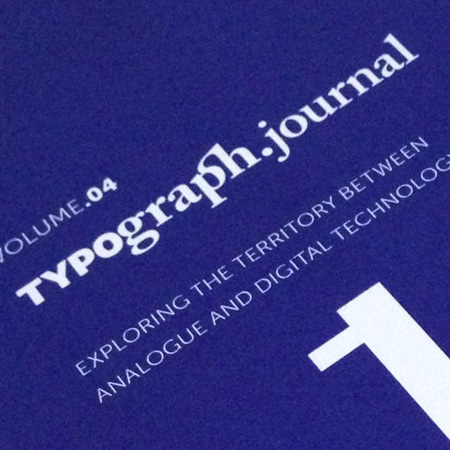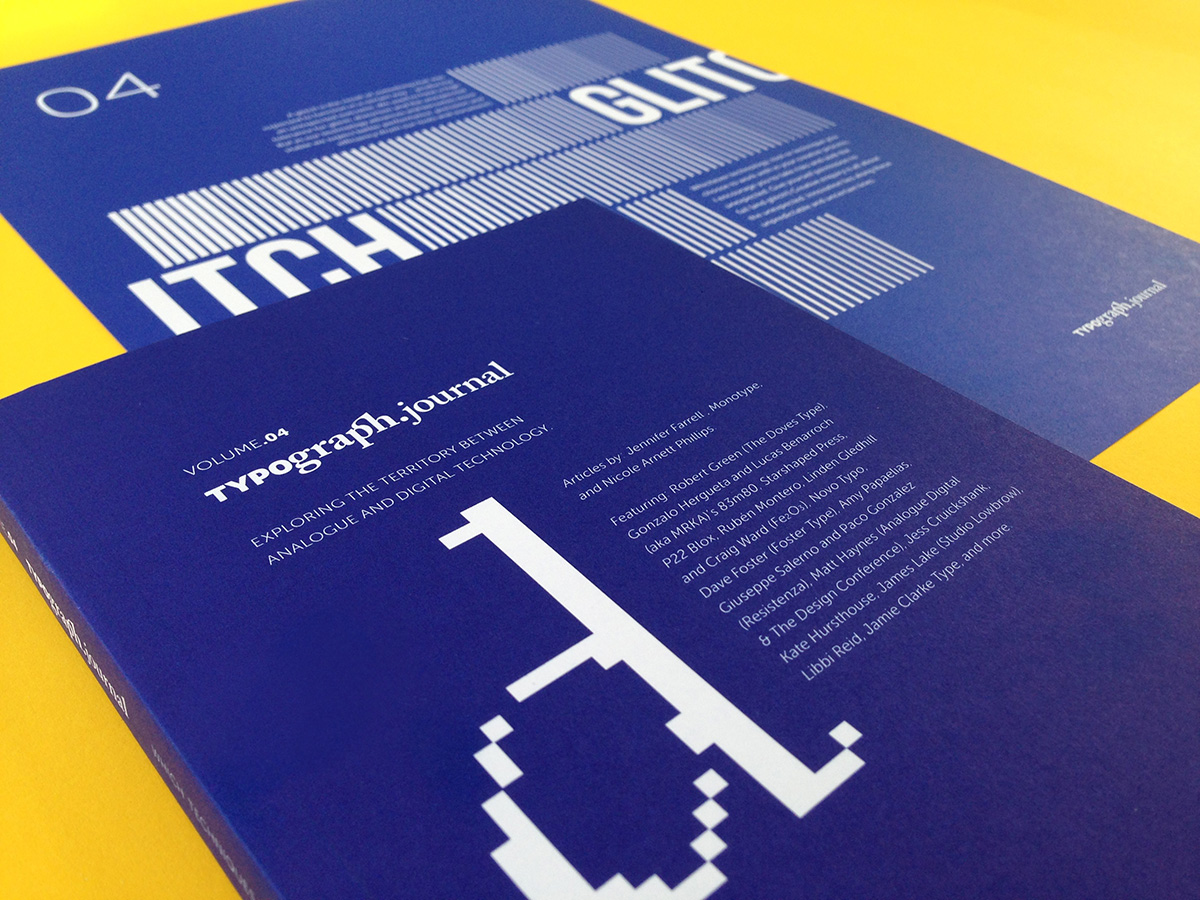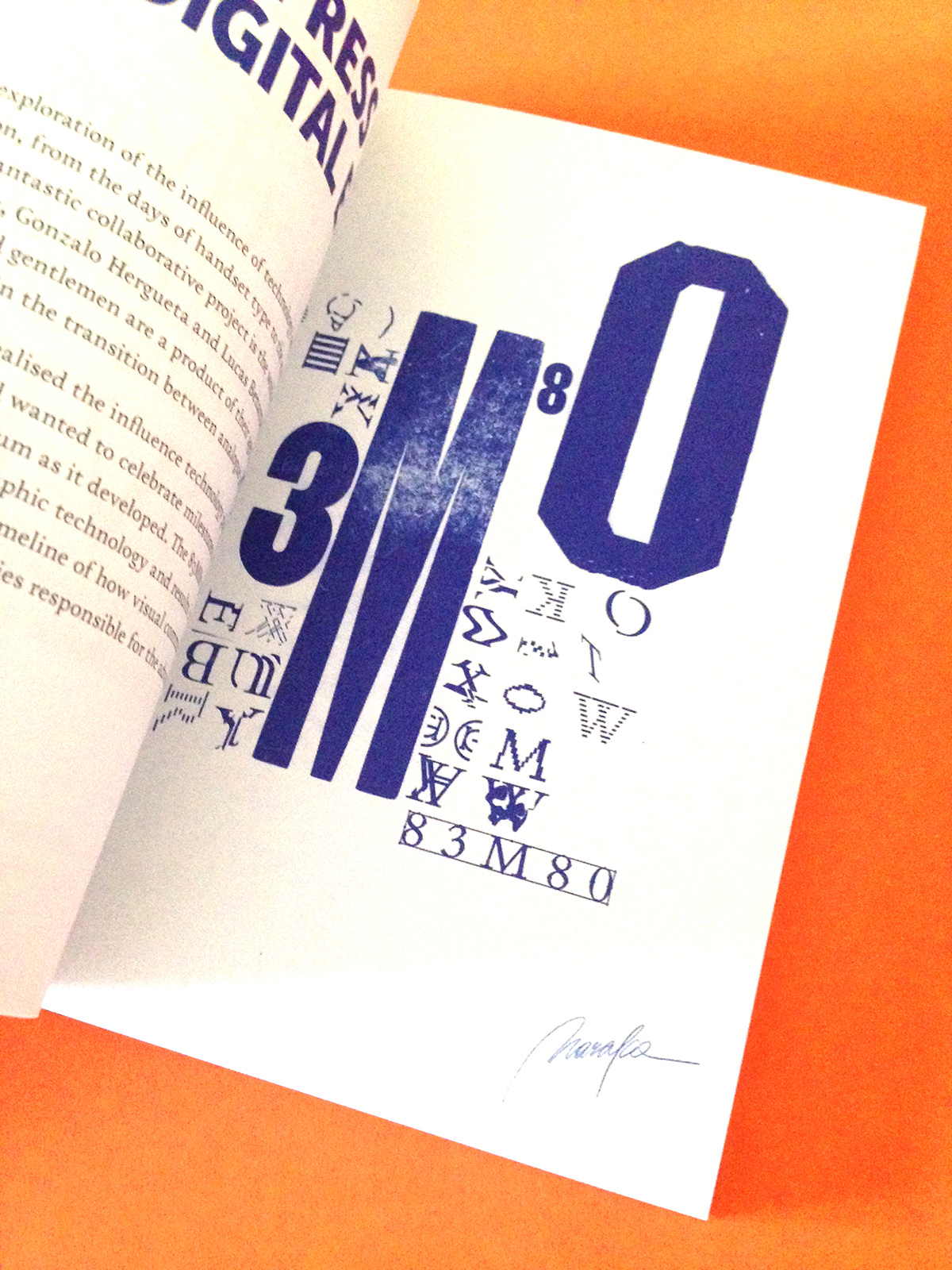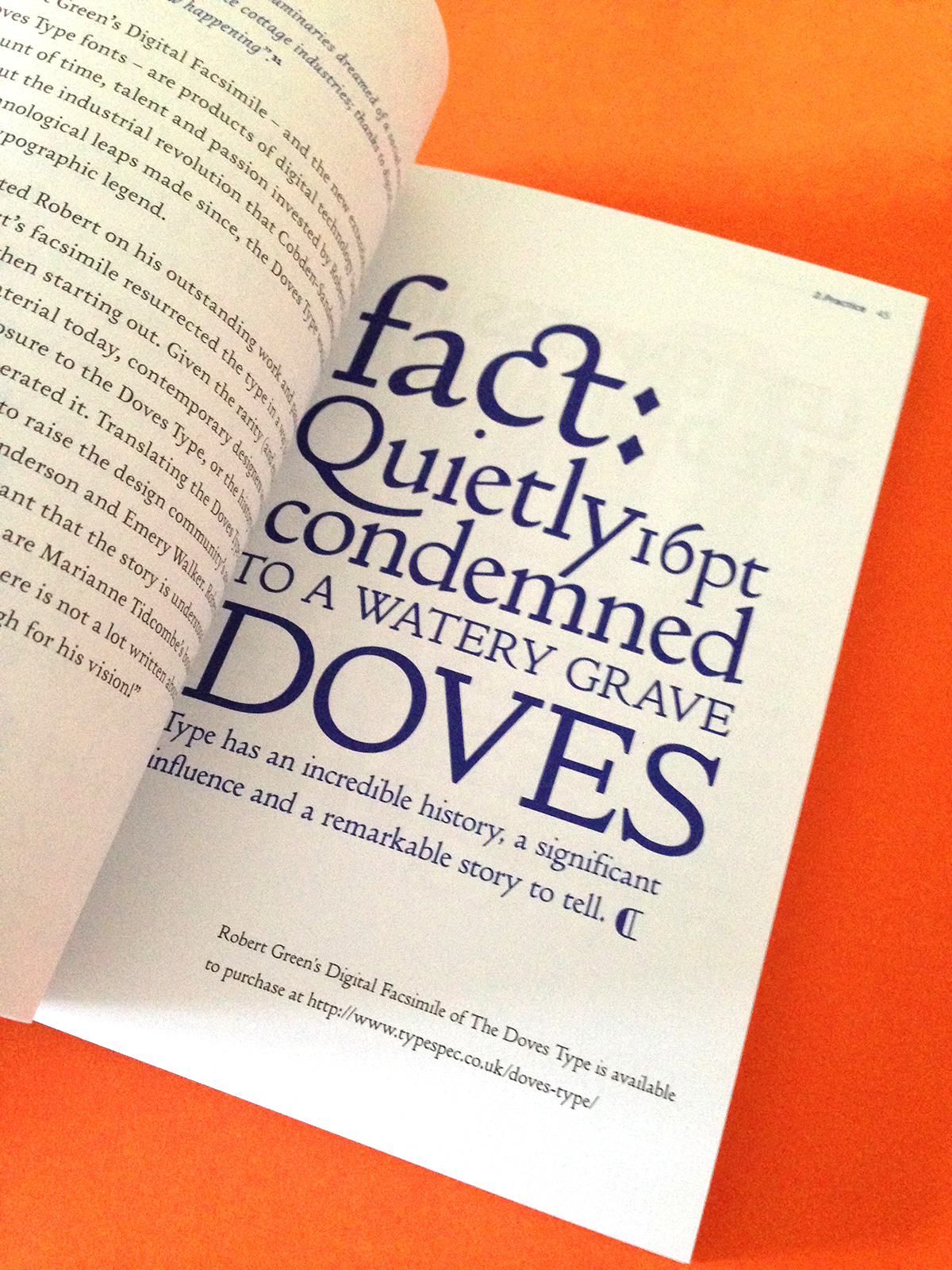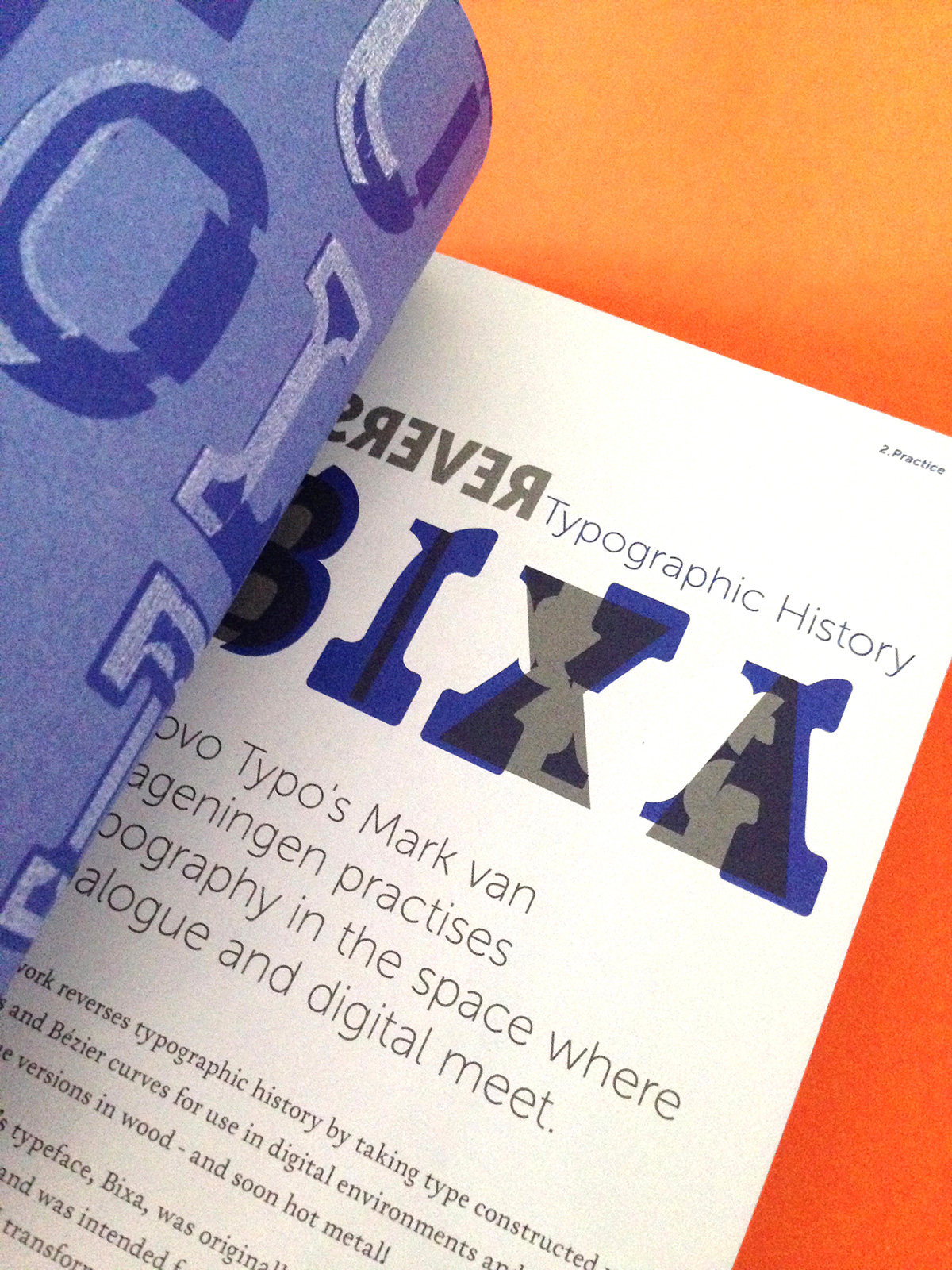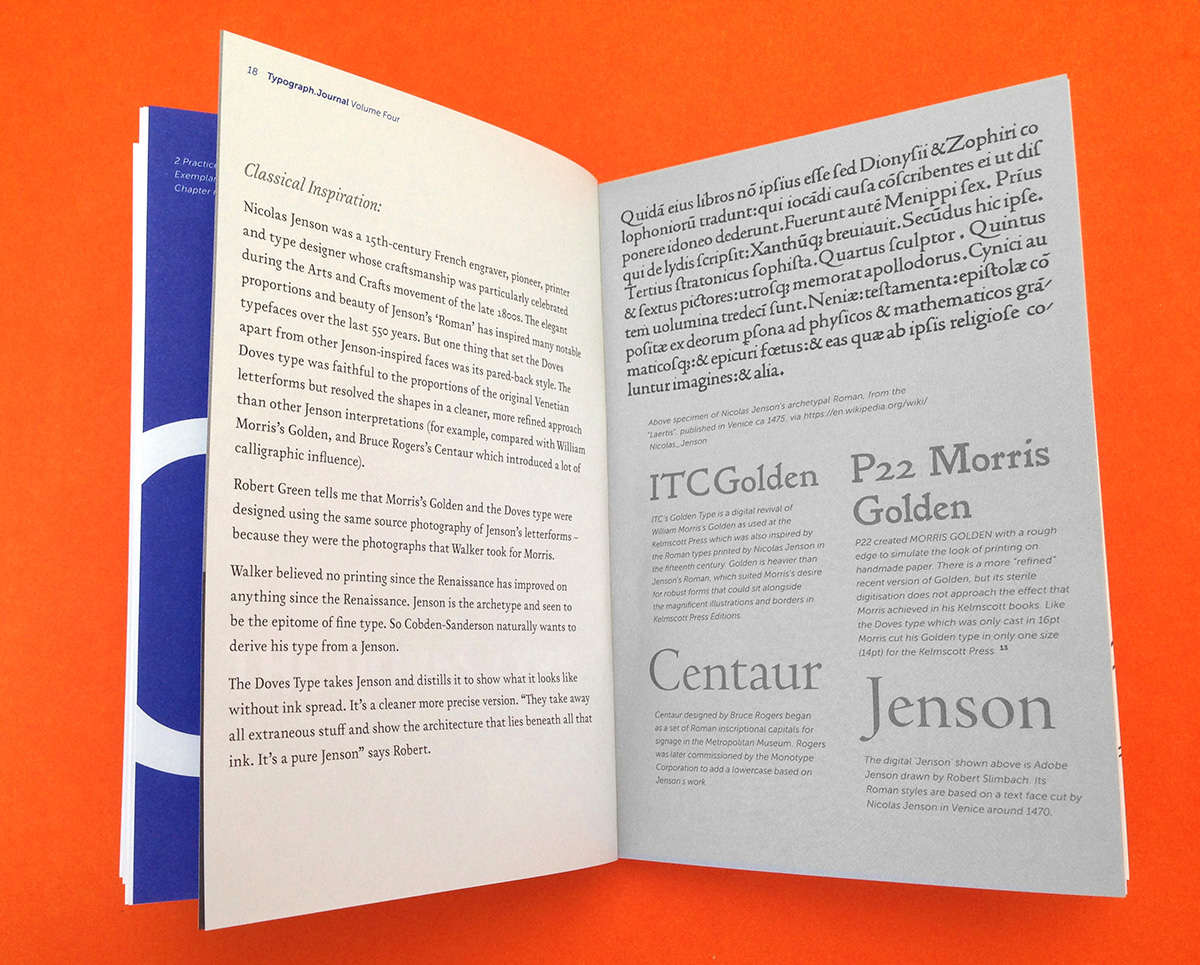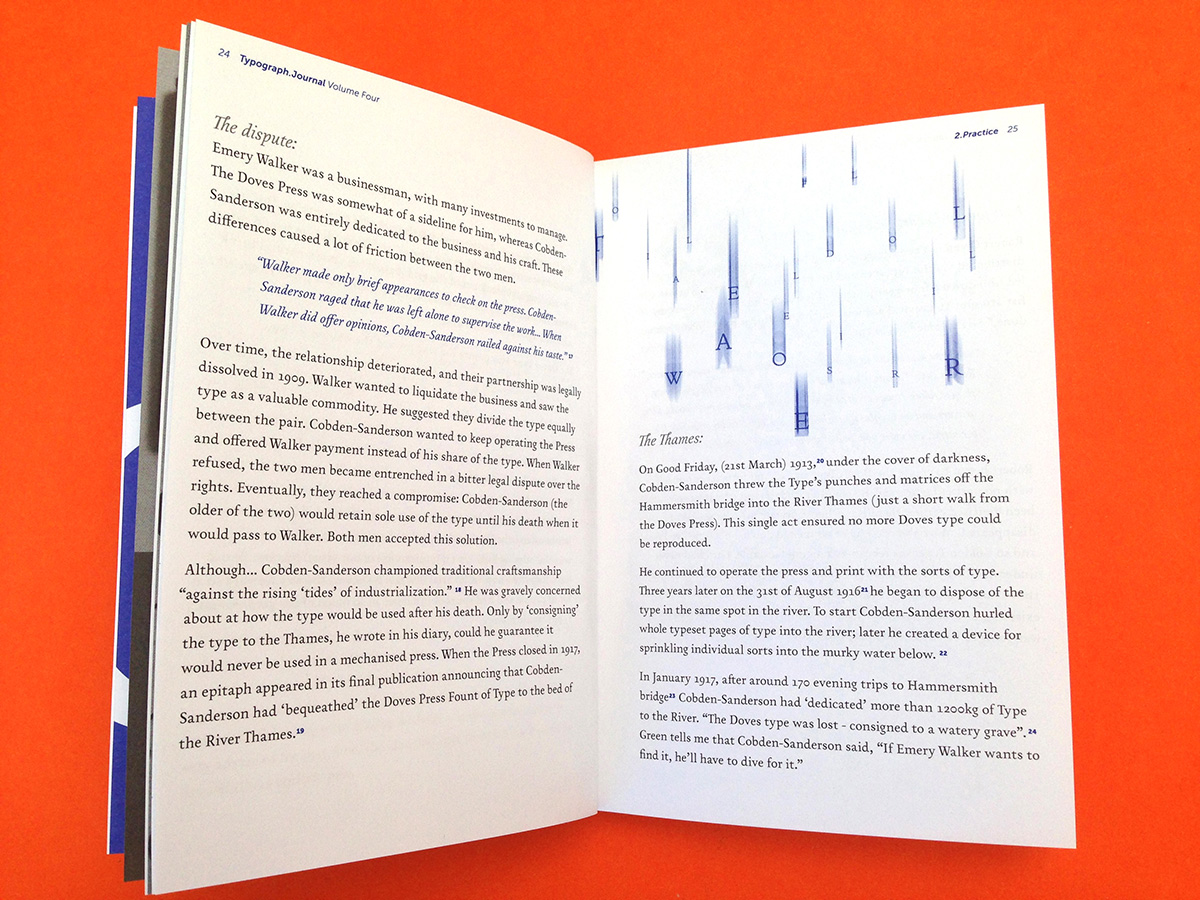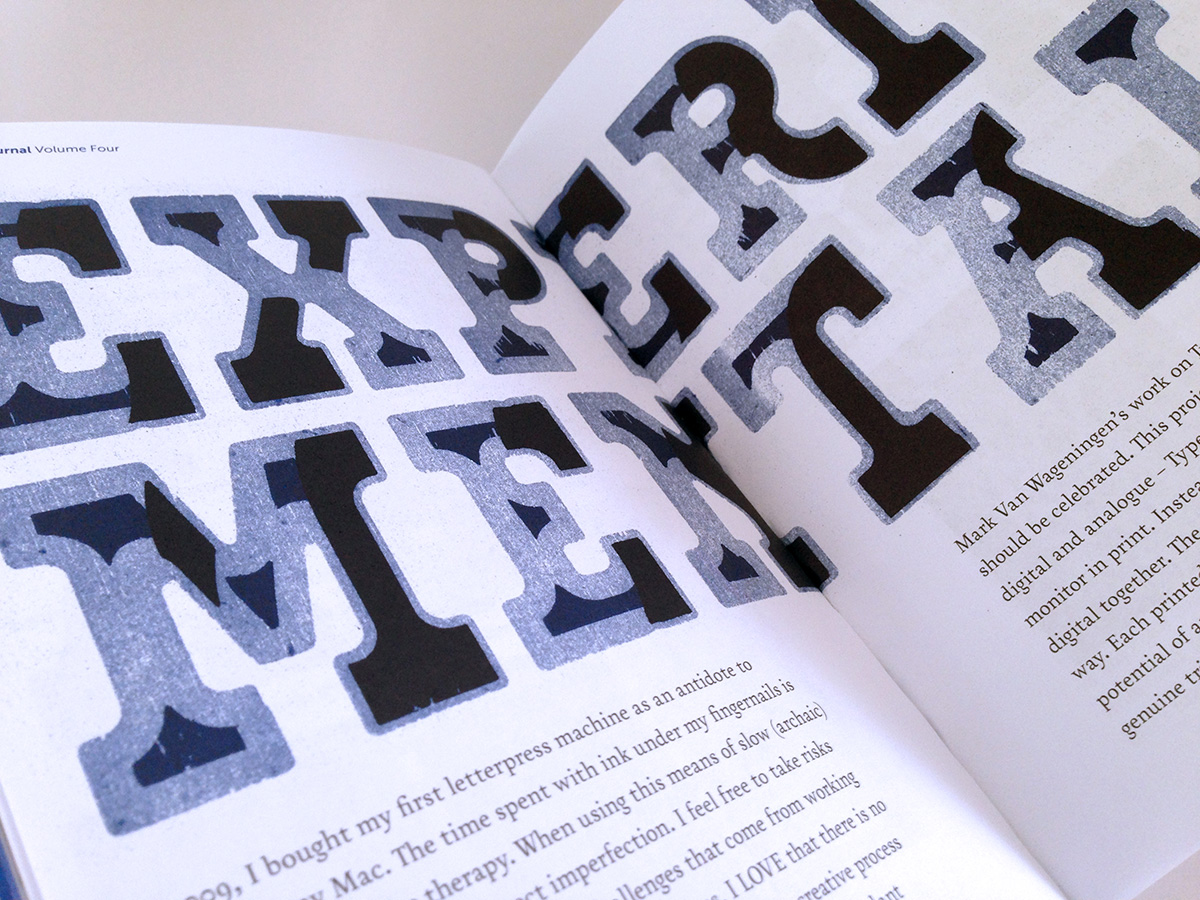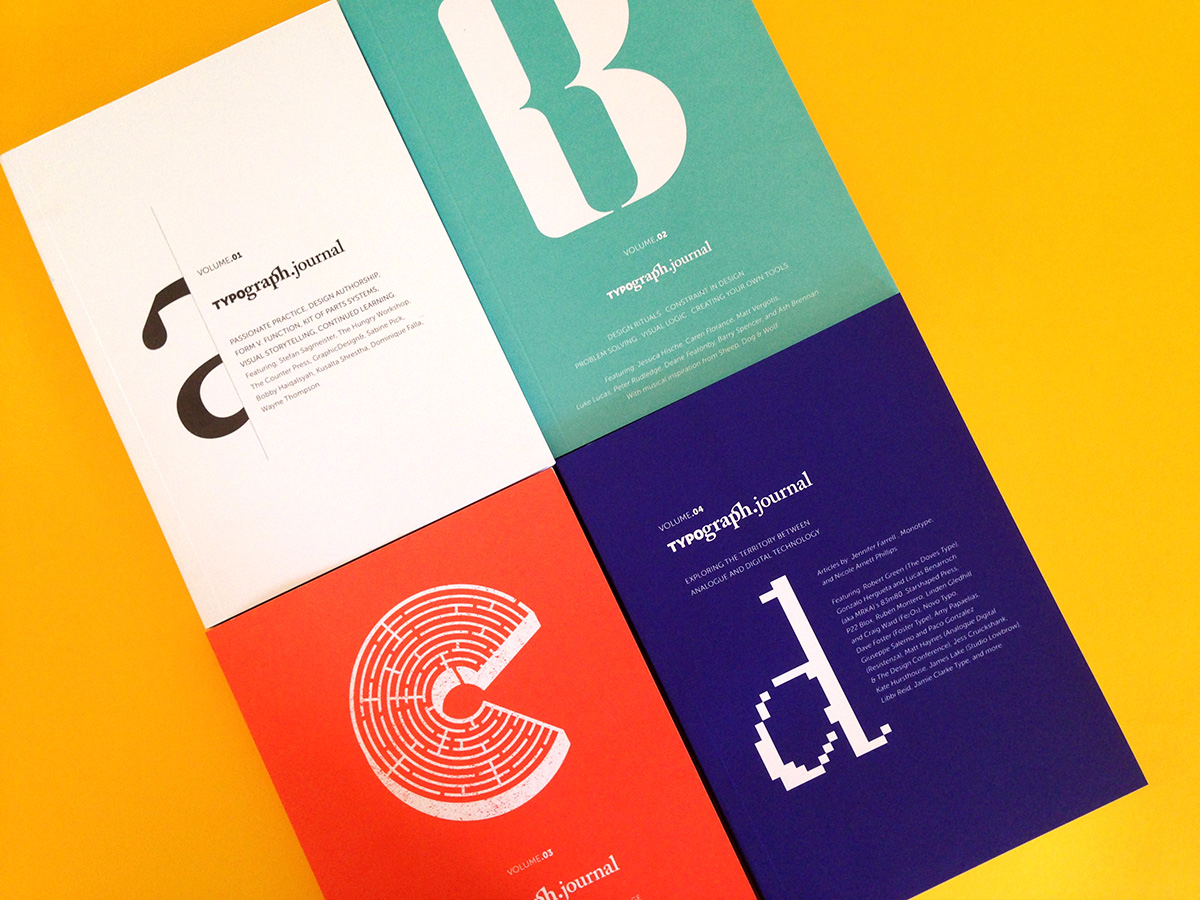
Nicole Arnett Phillips’ ode to creativity, Typograph.Journal 4
Ever since it was founded, back in 2014, Typograph.Journal celebrates the creative process of the world’s best and brightest typographers, type designers, letterers, calligraphers, and printmakers. Typograph.Journal is a series of experimental 5x7 printed documents written by designers for designers. The journal blends design thinking and discourse, with curated ‘eye candy’, appealing to academics, professionals and students alike. The layout, visual devices and typographic treatment (form) reflect the content and thinking (function). The text is accessible, conversational and offers readers an authentic and engaging insight into each person and project featured. On the strength of the previous three volumes, the hotly anticipated fourth issue was released earlier this week.
“Each volume of the journal starts with a question” says exclusively to TYPEROOM the type geek at the helm of Typograph.Journal, a renowned female typographic force herself with 16 years of professional experience in editorial design, visual communication, and art direction for the fashion, publishing and architectural industries. Nicole Arnett Phillips is currently working on a series of letterpress prints that translates letterforms between analogue and digital mediums. It was these visual experiments that sparked the content development for Typograph.Journal’s latest issue.
“In volume 01 I wrote a manifesto for the Journal. In it, I assert it is important to look backward to move forwards and this fourth volume demonstrates how critical this point is whilst exploring the space between analogue and digital technology. Much of the most exciting and innovative contemporary design uses inspiration, forms, techniques and tools from previous era’s (or reinvents and repurposes old technology in new ways). Volume 04 shines a spotlight on creative’s who embrace technology in their work. We investigate the space between archaic design craftsmanship and today’s digital lead practices – we also look at some fascinating projects that combine both old and new mediums” adds Nicole who now balances her professional practice with her ‘passionate practice’ which includes self-initiated publishing, teaching, and printmaking.
“The pathways we take in our creative process, and the tools we use when creating inform who we are as designers”
“In recent years, the design community has re-connected with slow media. Contemporary creatives embrace letterpress, calligraphy and working with their hands. (Nicole unashamedly admits there is a large letterpress focus in this volume!) We are once again recognizing the value of traditional craftsmanship and honoring simple tools and processes. But we are not entirely steeped in nostalgia. Designers love emerging technology too! Typograph.Journal volume 04 examines expressive digital mediums that reference human gestures and the human condition. The content is not so concerned with the technicalities of the digital realm but rather the ideas that might redefine its boundaries or the way we practice and create”.
The lead article in this volume focuses on Robert Green’s journey, tenacity (and obsession!) with translating printed specimen of the Doves Type into the digital realm. Other key features include; Novo Typo’s Bixa, which reverses typographic history by moving against the development of technology. 83m80 which celebrates the constraints of digital mediums in a printed format. P22 blox which uses cutting-edge plastic molding to revive an early modular font (originally cut in woodtype) for today’s letterpress community, Fe2O3 which uses space-age science to produce a new visual language. Amy Papelias’s spoken and living type specimens and many more amazing (and inspiring!) projects.
“The pathways we take in our creative process, and the tools we use when creating inform who we are as designers” she adds. This publication aims to serve a growing global scene of type enthusiasts. Typograph.Journal showcases exemplary work, analyses design process, and shares ideas through accessible and concise articles.